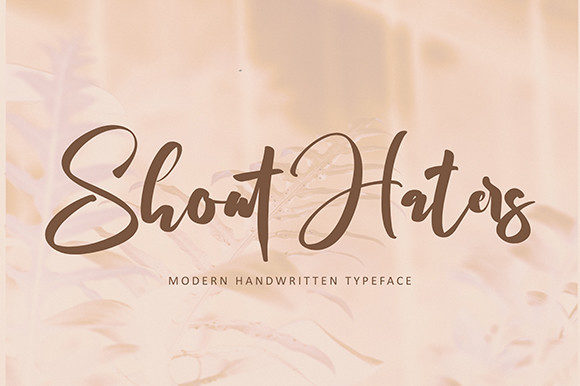
Welcome to the realm of elegance and charm, where letters dance with grace and beauty – introducing the Shout Haters Font, a script font that weaves a tapestry of captivating designs. Step into a world where words are transformed into works of art, where every curve and stroke tells a story of love, joy, and timeless elegance.
With Shout Haters, your creations will be infused with a touch of magic, an enchanting aura that whispers of romance, sophistication, and heartfelt emotions. Its delicate lines and sweeping flourishes evoke a sense of nostalgia, transporting you to a bygone era of handwritten letters and heartfelt sentiments.
Whether you're a designer crafting logos that leave a lasting impression, a photographer seeking to elevate your images with a touch of visual intrigue, or a creative spirit embarking on a journey of personal expression, Shout Haters will be your faithful companion, guiding you towards design excellence.
Dive into a symphony of creative possibilities, where Shout Haters' versatility shines like a star in the night sky. Its graceful curves adapt seamlessly to a myriad of projects, from enchanting wedding labels that speak of enduring love to enchanting branding designs that exude timeless appeal.
With Shout Haters by your side, you'll discover a new realm of design possibilities, where elegance and charm reign supreme. Embrace the beauty of handwritten artistry and elevate your creations to new heights of brilliance.